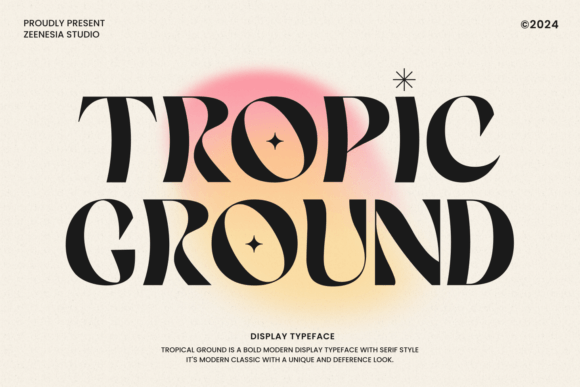
Tropic Ground: The Premium Display Font for Memorable Branding
I remember the exact moment I realized my small business needed a change. It was late on a Tuesday evening, staring at a stack of unsold candle jars and blank thank-you cards that felt completely disconnected from the warm, inviting vibe I wanted to project. My previous typography choices were generic and safe, but they didn't tell the story of my brand's unique personality. That night, I decided to dive into Tropic Ground, a distinctive display font that skillfully blends modern design with a touch of time-honored flair. As I started applying this colorful serif style font to my product labels, I immediately saw how it could transform a simple package into a piece of art that customers actually want to keep.
Why Tropic Ground Works Best for Product Packaging and Labels
When you are designing Fonts for physical products like candles, baked goods, or skincare items, readability and character must coexist perfectly. Tropic Ground excels in this area because its distinct serif structure provides a sense of tradition and quality while remaining vibrant enough to catch the eye on a crowded shelf. In my experience refreshing the packaging for my own boutique, switching to this display typeface made the text pop without feeling chaotic. The font's ability to balance modern aesthetics with a classic feel ensures that your branding looks professional and trustworthy.
Imagine printing these fonts on kraft paper tags or glossy bottle stickers; the serifs add a layer of sophistication that plain sans-serif fonts often lack. For businesses selling handmade goods, this visual depth is crucial because it signals care and attention to detail. Whether you are labeling a jar of artisanal soap or creating a custom box for a bakery item, Tropic Ground offers the perfect balance of legibility and style. It turns standard product information into a design element that reinforces your brand identity every time a customer picks up an item.
Tropic Ground Elevates Social Media Graphics and Digital Ads
In the digital space, where attention spans are short, using the right Display font can be the difference between a scroll-past and a click-through. I recently updated my Instagram templates and online shop banners using Tropic Ground, and the engagement on my posts noticeably shifted. Because this colorful serif style font offers an immediate visual hook, it works exceptionally well as a headline font for promotional graphics. It draws the viewer in before they even read the message, setting a tone that is both trendy and timeless.
For content creators and marketers, consistency is key to building a recognizable brand. By integrating Tropic Ground into your social media visuals, flyers, and web banners, you create a cohesive look that feels polished across all platforms. The font's unique character makes it stand out against the sea of generic typefaces used by competitors. When paired with clean imagery, the text becomes the star of the show, guiding the customer's eye exactly where you want it. This is especially effective for limited-time offers, new product launches, or seasonal promotions where you need to grab attention instantly.
Perfect Pairings for Modern Typography Projects
One of the most common questions I get about selecting a premium font is how to pair it with other typefaces. Tropic Ground is versatile enough to stand alone as a powerful statement, but it truly shines when combined with complementary styles. For a balanced and sophisticated look, I recommend pairing it with a clean sans serif font for body text. This combination allows the display font to handle the headlines and emotional impact while the sans-serif ensures that instructions, ingredients, or descriptions remain easy to read.
If your brand leans more towards elegance or luxury, consider pairing Tropic Ground with a delicate script font or a handwritten style for accents. This mix creates a dynamic contrast that adds personality without overwhelming the viewer. For example, using the script font for "Handmade" or "Fresh" next to the bold serifs of Tropic Ground for the main title creates a layered effect that feels curated and high-end. The key is to let each font do what it does best: one captures attention, and the other delivers clarity.
Building Trust Through Consistent Brand Identity Design
A strong brand identity goes beyond just a logo; it is the sum of every visual interaction a customer has with your business. Using Tropic Ground consistently across your business cards, thank-you cards, and website headers helps establish a reliable and memorable presence. When a potential client sees your name on a card, then later on a menu, and finally on an email signature, the repetition of this distinctive typeface builds subconscious trust. It tells them that you are serious about your craft and committed to quality.
For small business owners looking to scale, having a library of commercial font assets that work seamlessly together is invaluable. Tropic Ground simplifies this process by providing a single, robust option that fits various contexts, from large outdoor signage to tiny mobile screens. Its clear letterforms ensure that your message is never lost due to poor resolution or small size. By investing in a high-quality display font like this, you are essentially investing in the perceived value of your entire product line, making your brand appear more established and professional than it might have been otherwise.